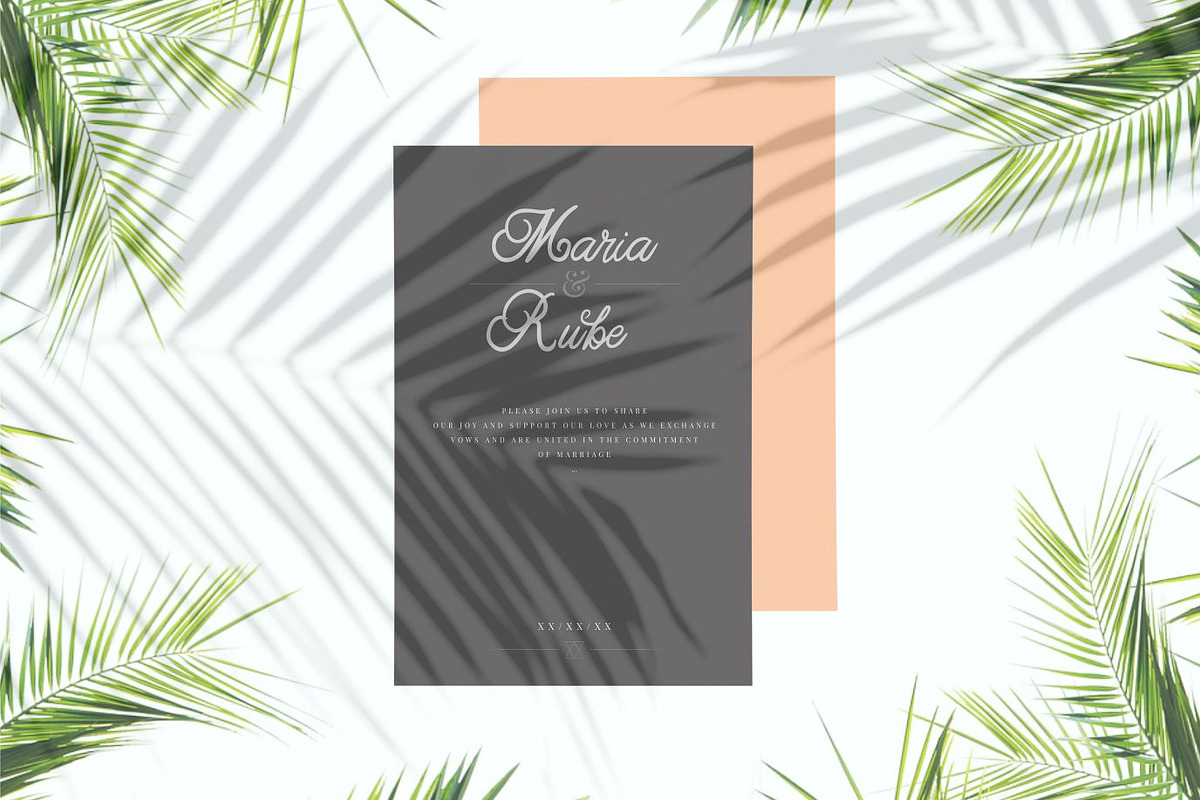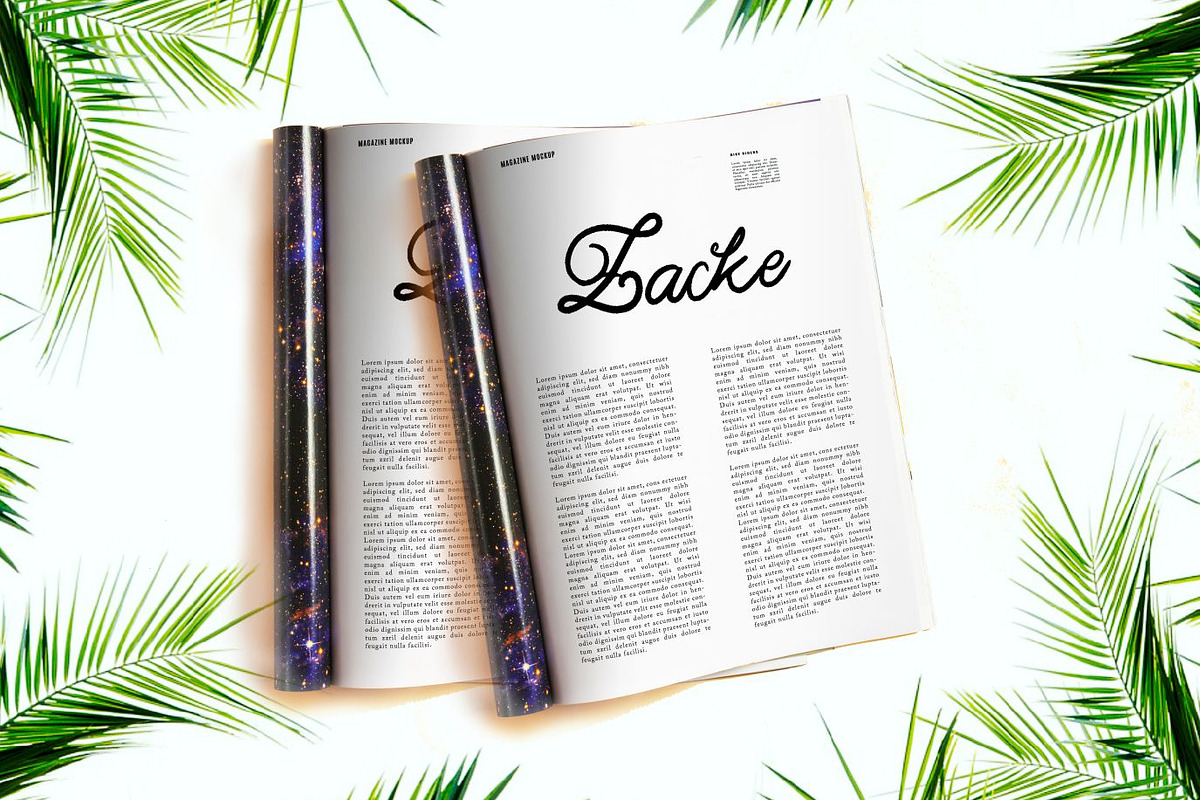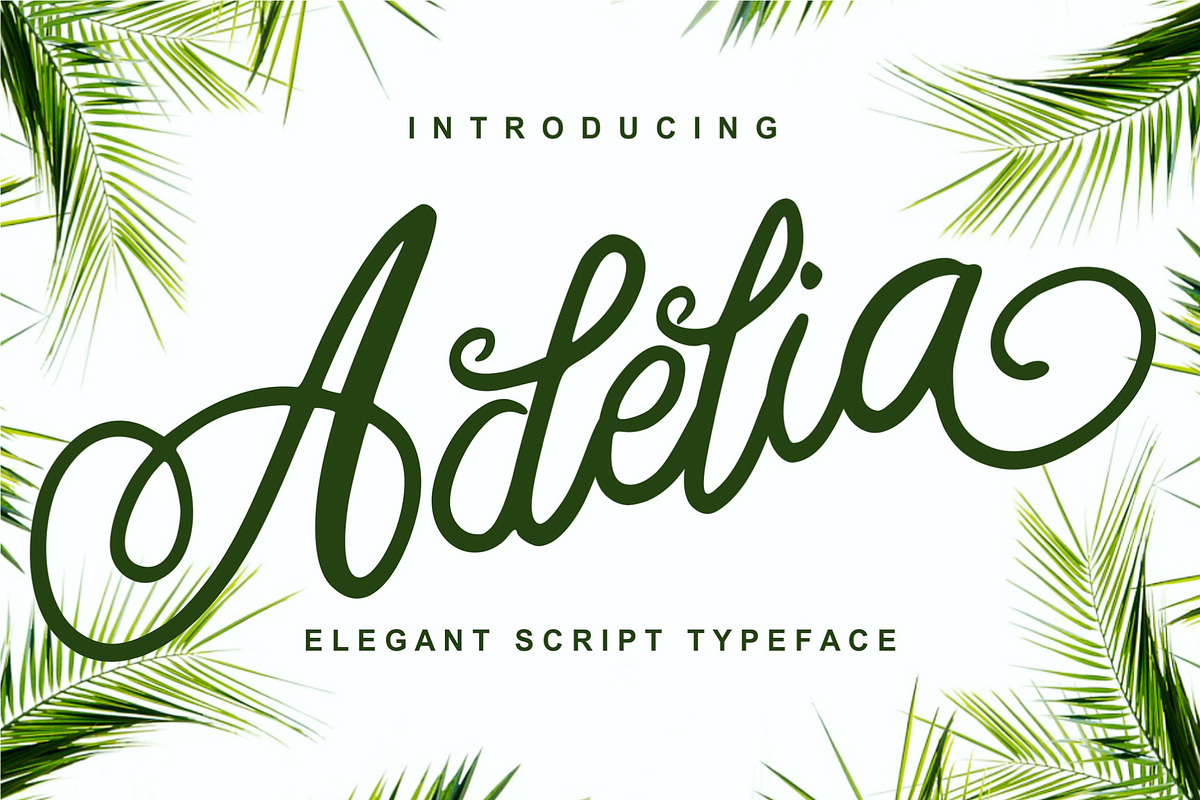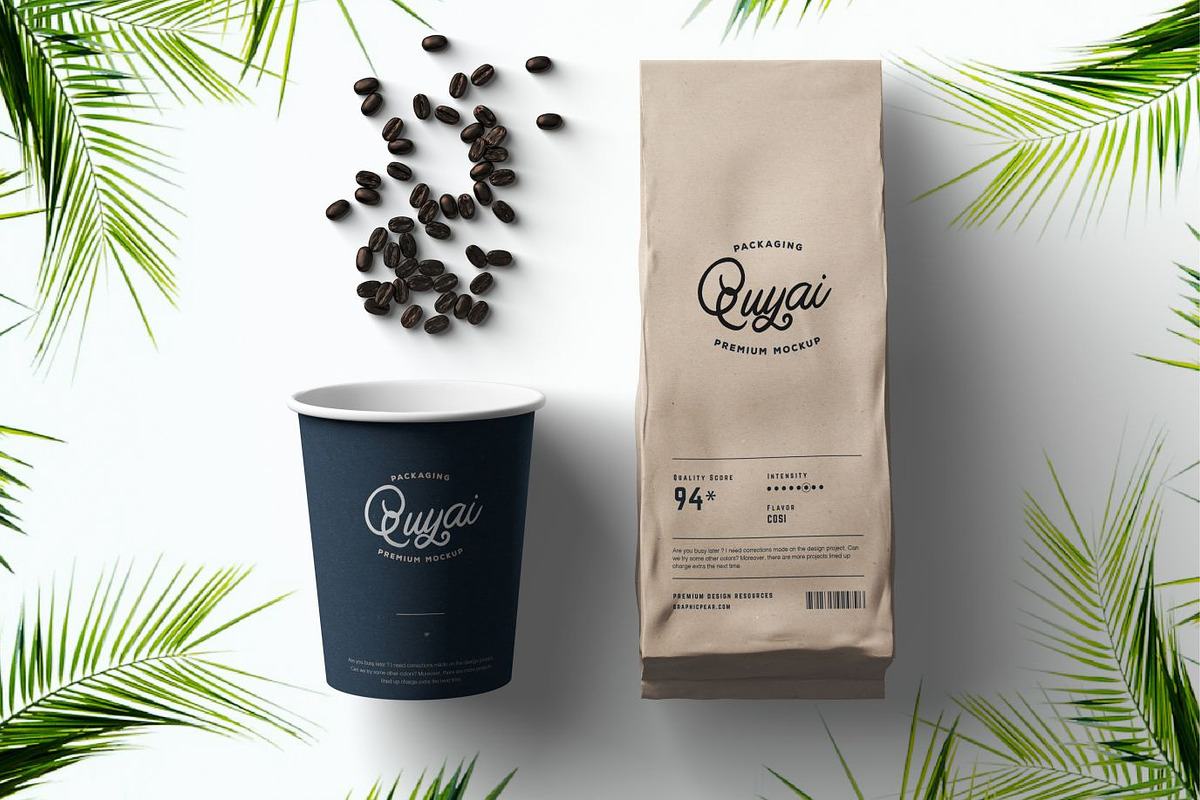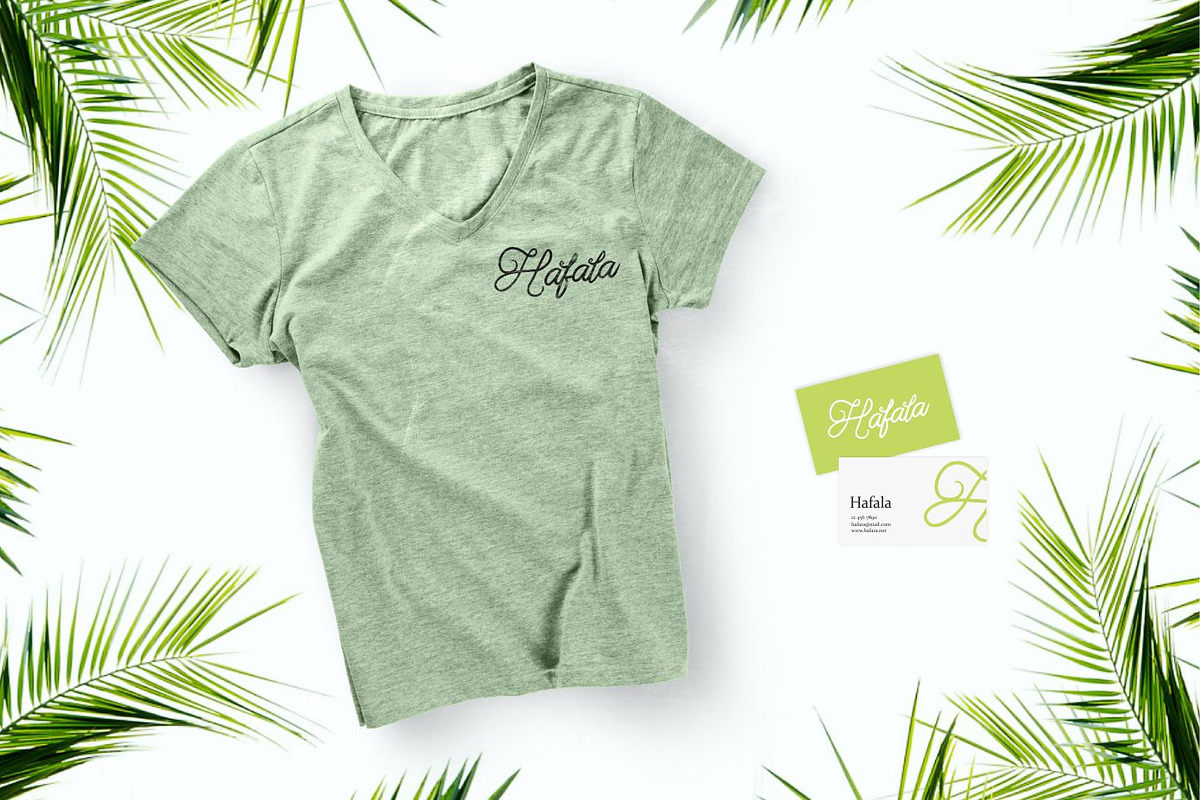
Adelia - Elegant Script Typeface
So beautiful on invitation like greeting cards, branding materials, business cards, quotes, posters, and more!
Adelia - Elegant Script Typeface by KAZ by IanMikraz Studio fits naturally into Branding, posters, packaging, typography.